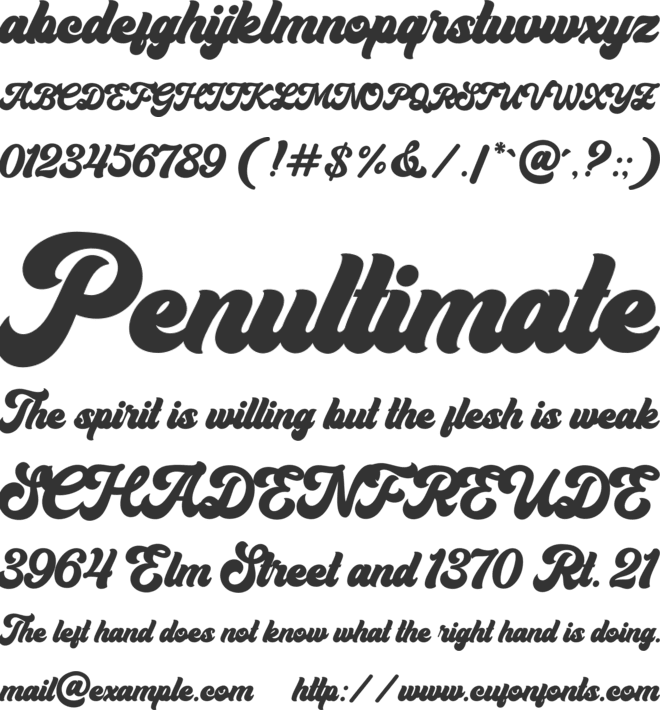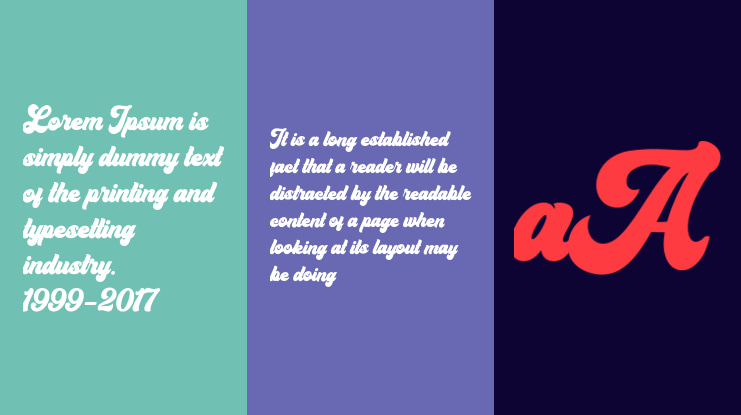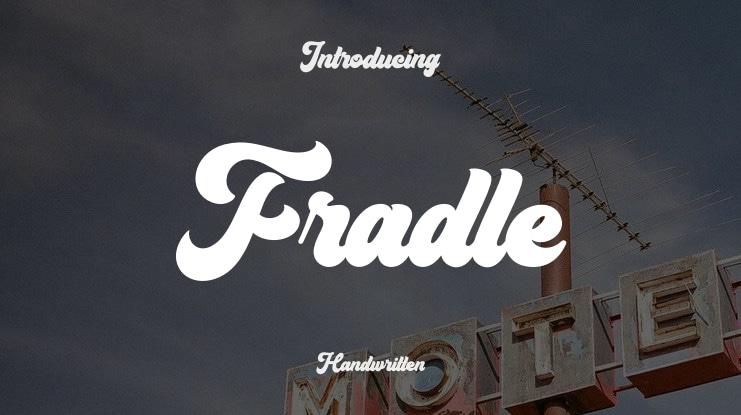
Fradle Font
Retro bold script font that captures the vintage charm and boldness. It brings a nostalgic appeal that resonates with audiences looking for vintage authenticity and modern allure.Notes :- This Font is PERSONAL USE ONLY, NO COMMERCIAL USE ALLOWED!- For Full Version and COMMERCIAL USE, please purchase license here https://onedsgn.com/product/crossboxed/